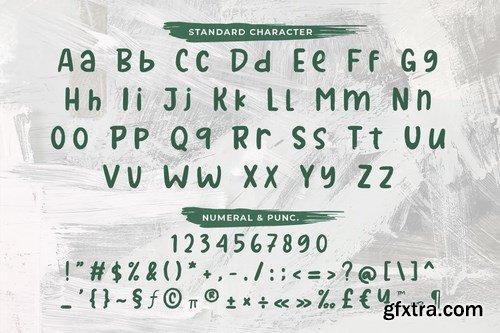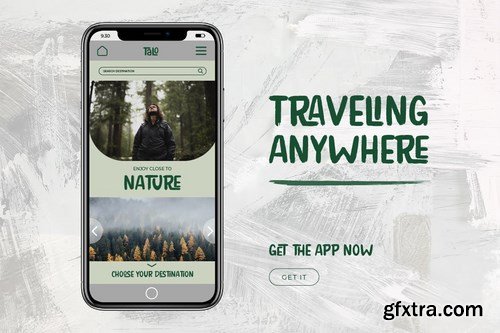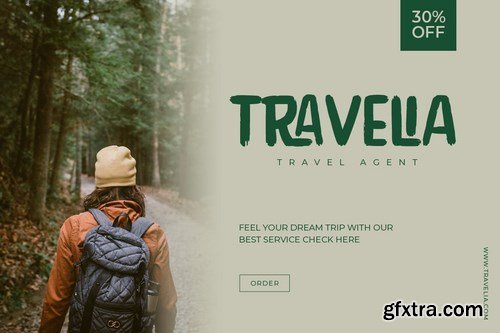
King Trufle is display fun font with a bold and rough style. This font is good for logo design, Social media, Movie Titles, Books Titles, short text even long text letters, and good for your secondary text font with sans or serif.